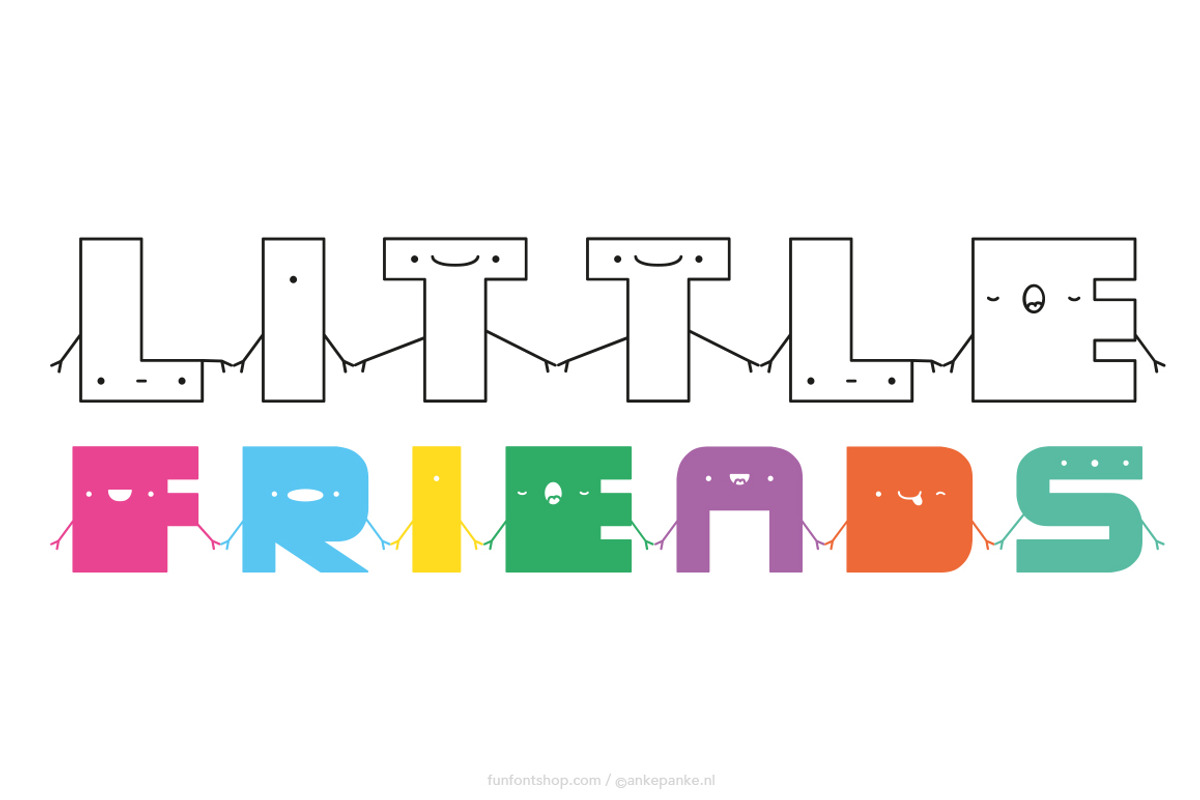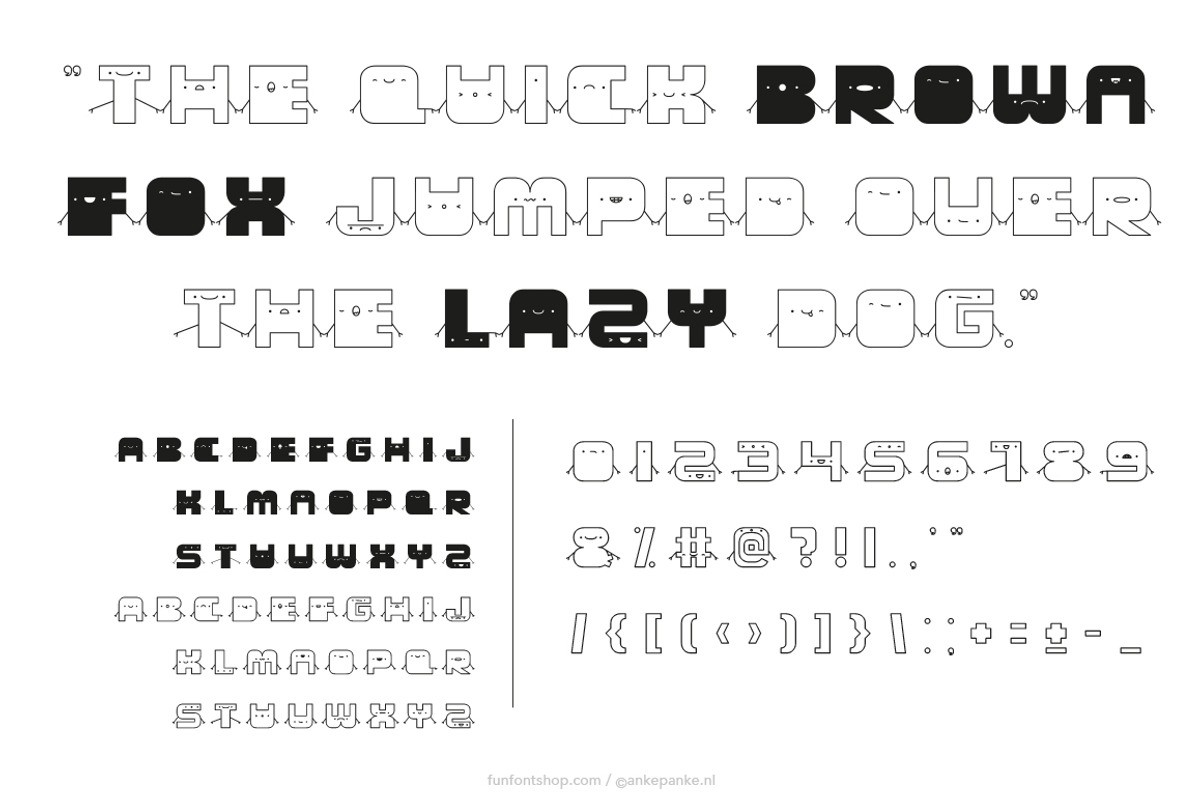
Little Friends Font
A cute, wide font where almost every glyph has a face (and various moods) and they're holding hands! Outline and filled version included. This font is created digitally, so big or small: it's always clean.
- Letters Uppercase and numbers
- Punctuation !?#%&±+=-_,.:;'"/|@({[]})